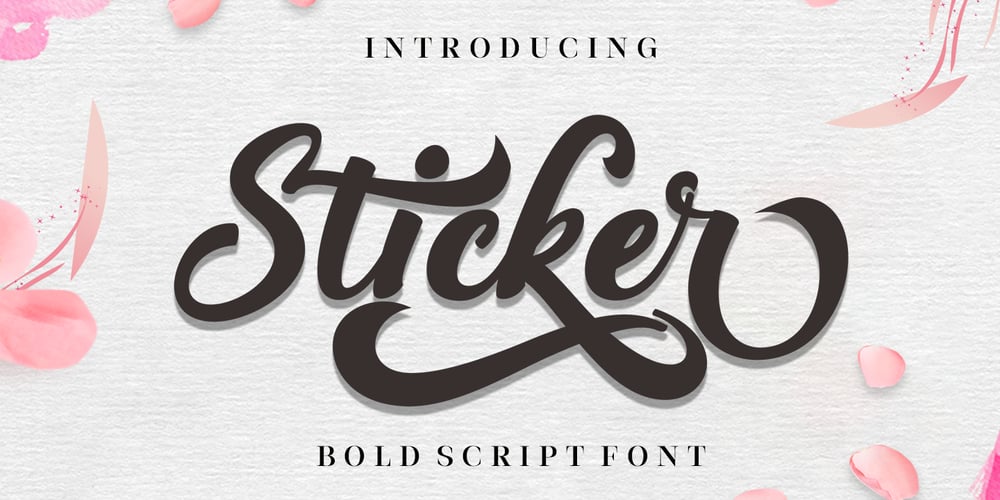
Sticker Font Family was designed by Teuku Muslyawan and published by DonyaDesign. Sticker contains 1 styles and family package options. Special creative products for you, our products will give you an extraordinary experience that will not be forgotten.A popular and professional script font. Modern and elegant, this typeface is made of beautiful creative strokes.This font is perfect for your creative ideas, both formal and informal. It has a modern style with a touch of creative ideas that is very suitable to be applied anywhere that requires creative ideas such as invitation cards,letterheads, website logos, social media, banners, advertisements, brochures, packaging products, leather products, and any product that requires writing.By using this font, all of your products will look luxurious, elegant, and attractive, please try and see the results.This font includes a complete set of beautiful upper and lowercase letters, numbers, a wide variety of punctuation marks, and ligatures. All lowercase letters include a start and end, providing a realistic style. everything you get.